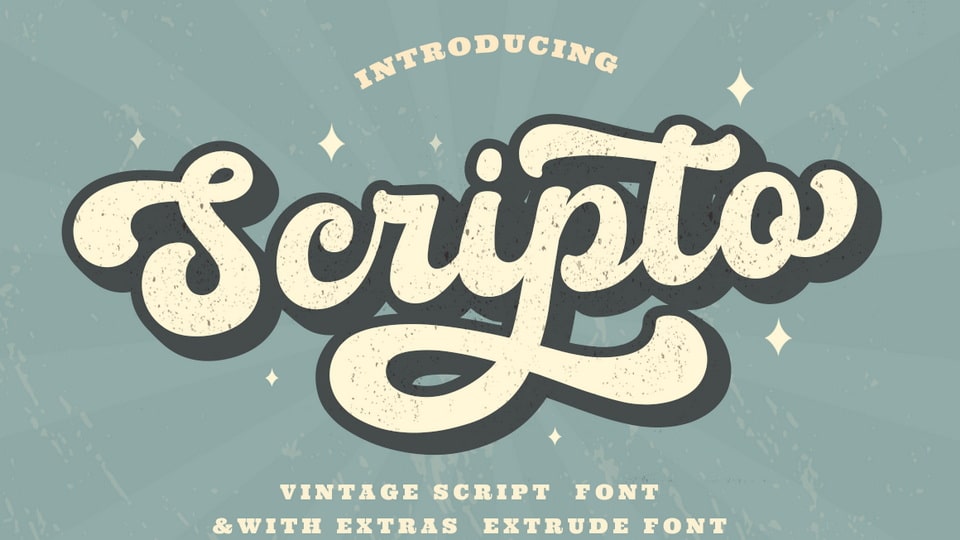
Download Scripto font, a fun, bold, retro-style script typeface. Neatly crafted and highly detailed, Scripto font will be a wonderful asset to enhance any creation.
Designer: Pentype Studio